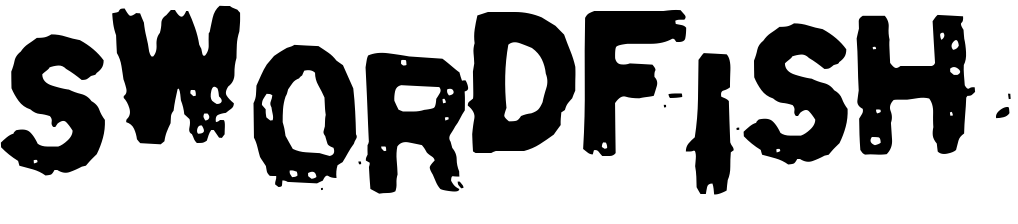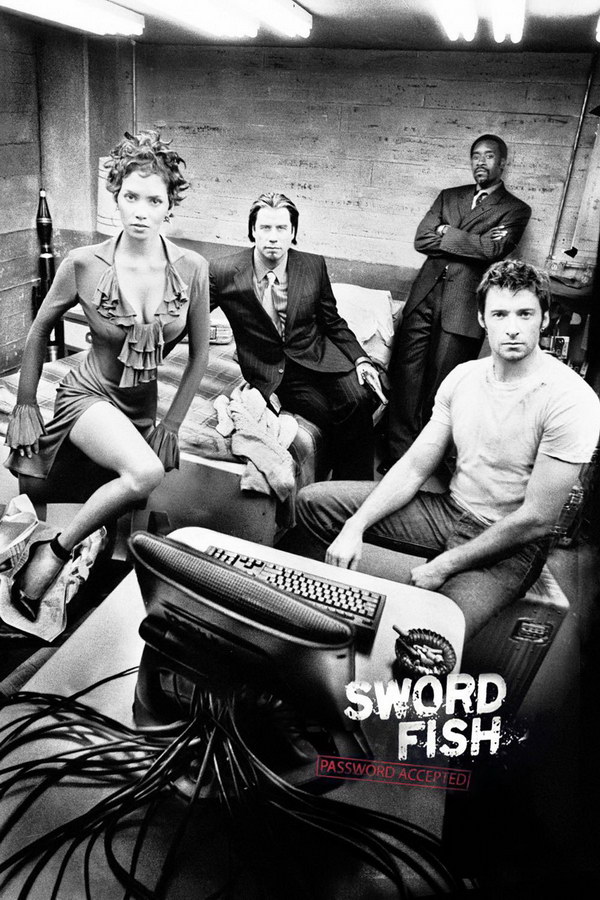
Fonts in UseSwordfish is a 2001 action thriller film directed by Dominic Sena, featuring a brilliant hacker (Hugh Jackman) forced to assist a dangerous criminal organization in hacking into government systems.
The Swordfish movie poster showcases grunge lettering resembling the font called Swordfish, which is exclusively available in uppercase and lowercase letters. To obtain the font, you can easily download it for free from the Fonts Used Section.